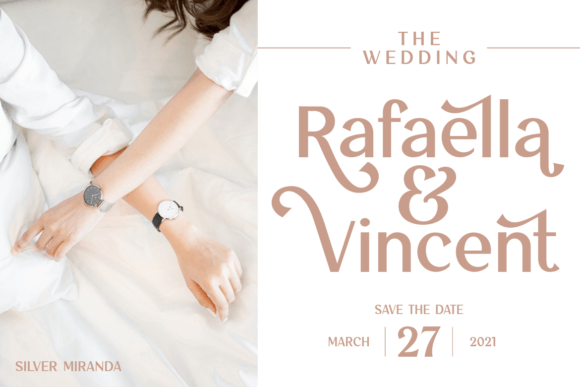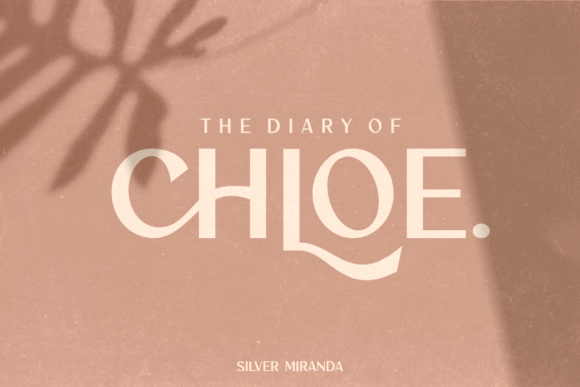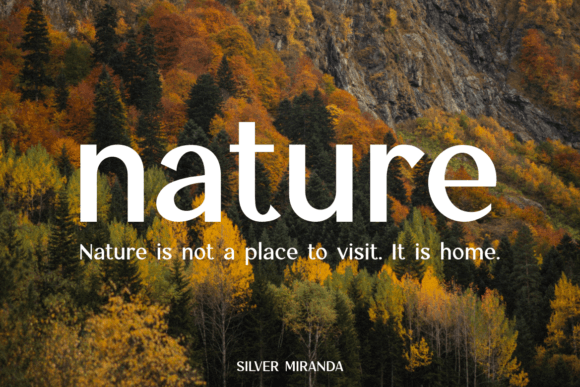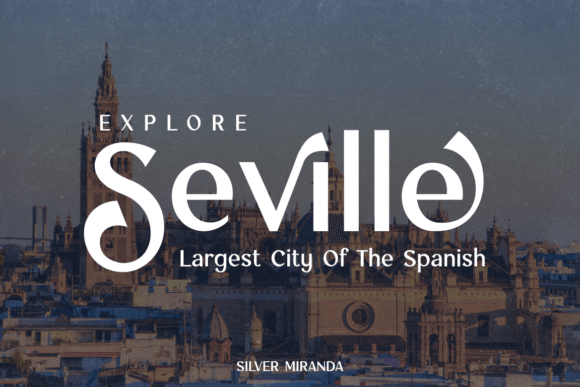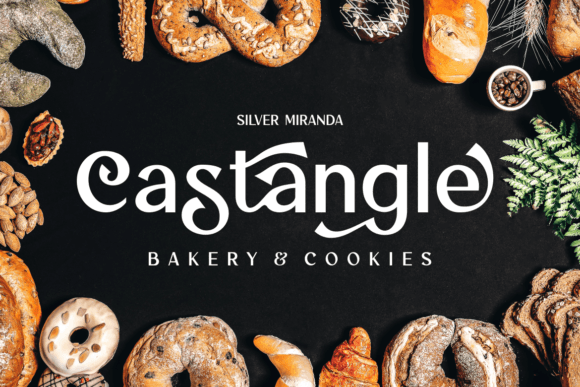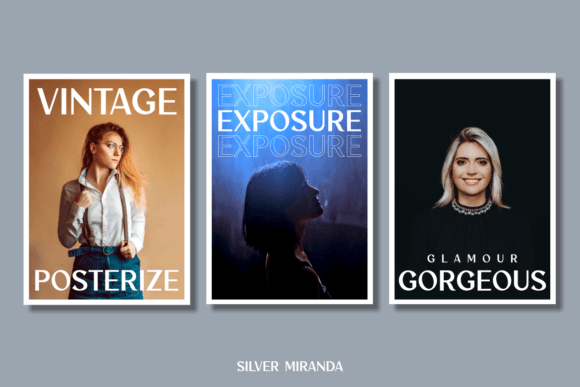
Introduction to Silver Miranda Font
Silver Miranda is a sans-serif font with an elegant and classy appearance.
Each typeface is crafted to produce a vintage modern font This font can direct you to access unique typeface collections.
Key Features of Silver Miranda Font